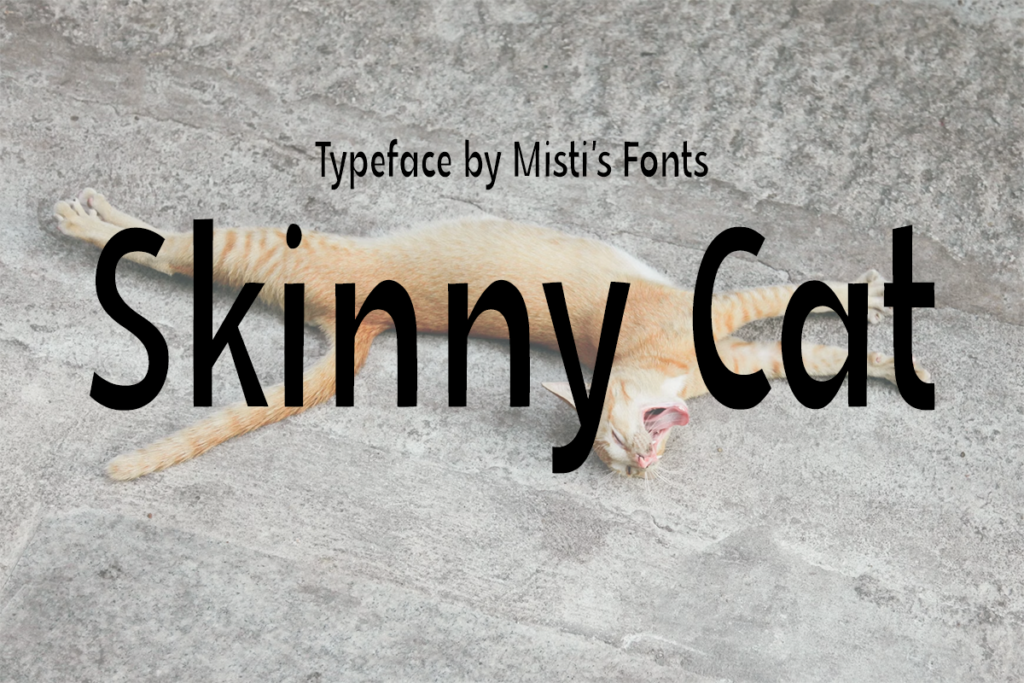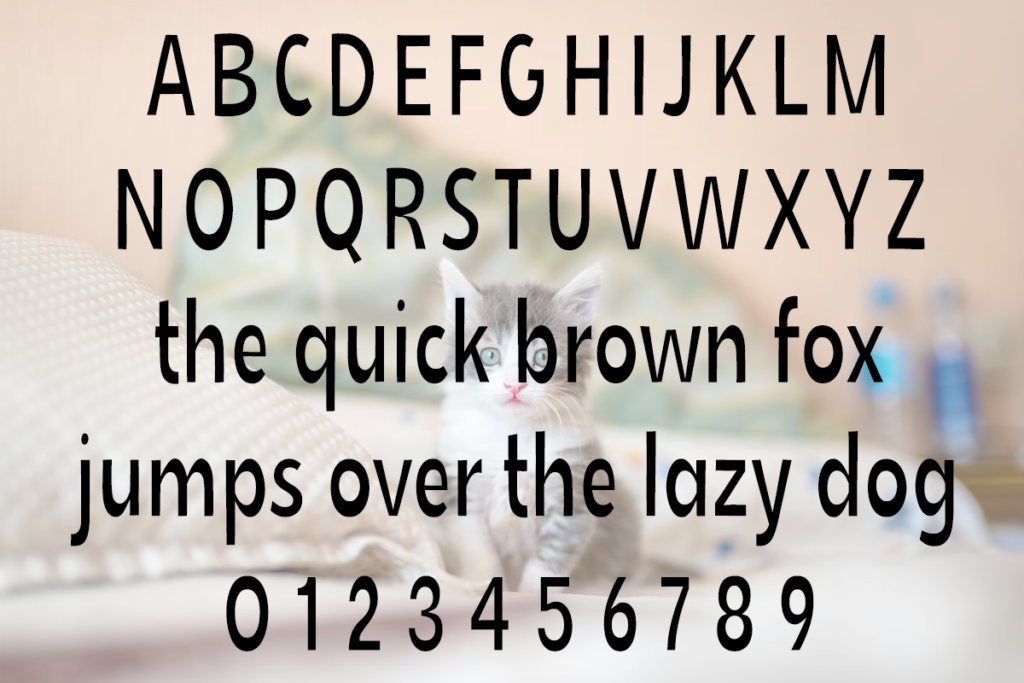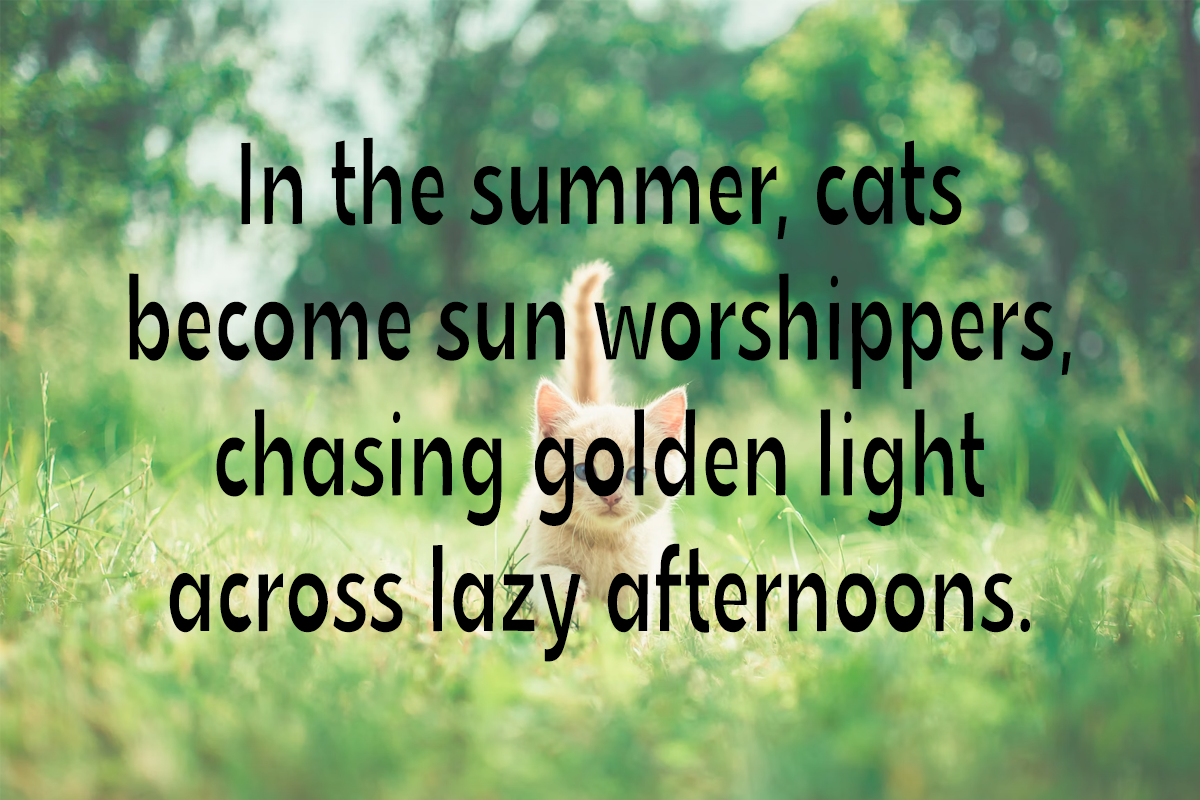
Skinny Cat is a tall and narrow display sans serif with a sleek, modern vibe. Its clean lines and slim profile make it perfect for logos, headlines, posters, and minimalist designs that need a stylish, space-saving typeface with personality.